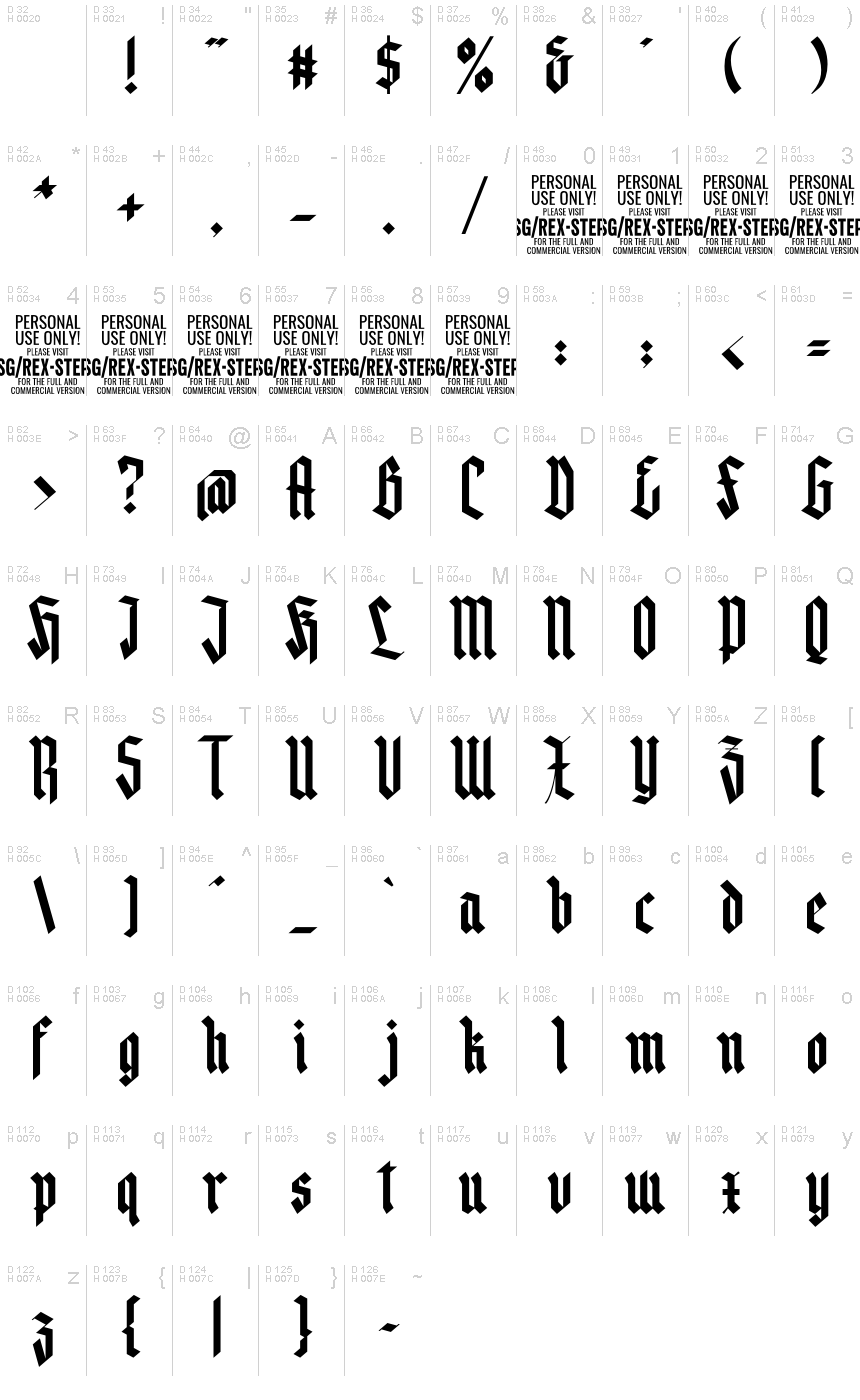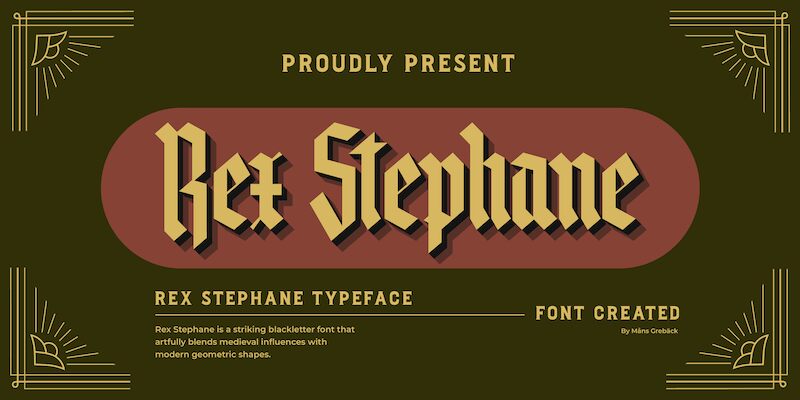
Rex Stephane PERSONAL USE Regular
Rex Stephane, a creation of typographic artist Mans Greback, seamlessly blends the timeless aura of gothic design with a modern twist. Its condensed form gives it a striking presence on the page, making each letter command attention with sharp angles and an edgy personality. The crisp lines and bold structure convey a sense of sophistication and contemporary elegance.
This font's impactful style is suited for various design applications where strength and character are paramount. Ideal for branding, headline typography, or any project requiring a touch of modern gothic flair, Rex Stephane asserts itself as more than just text—it's an assertive design statement that can define the visual voice of a brand or message.
Rex Stephane is a striking blackletter font that artfully blends medieval influences with modern geometric shapes.